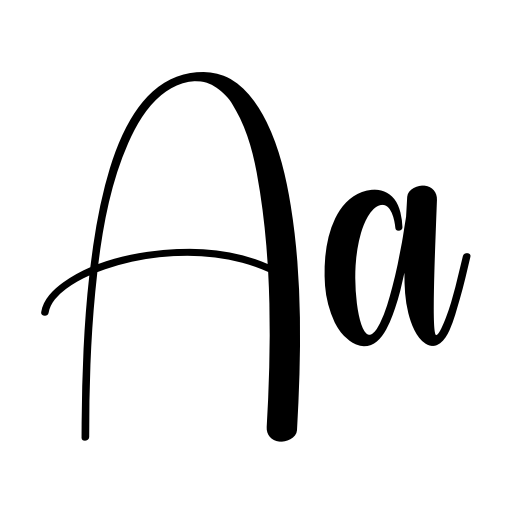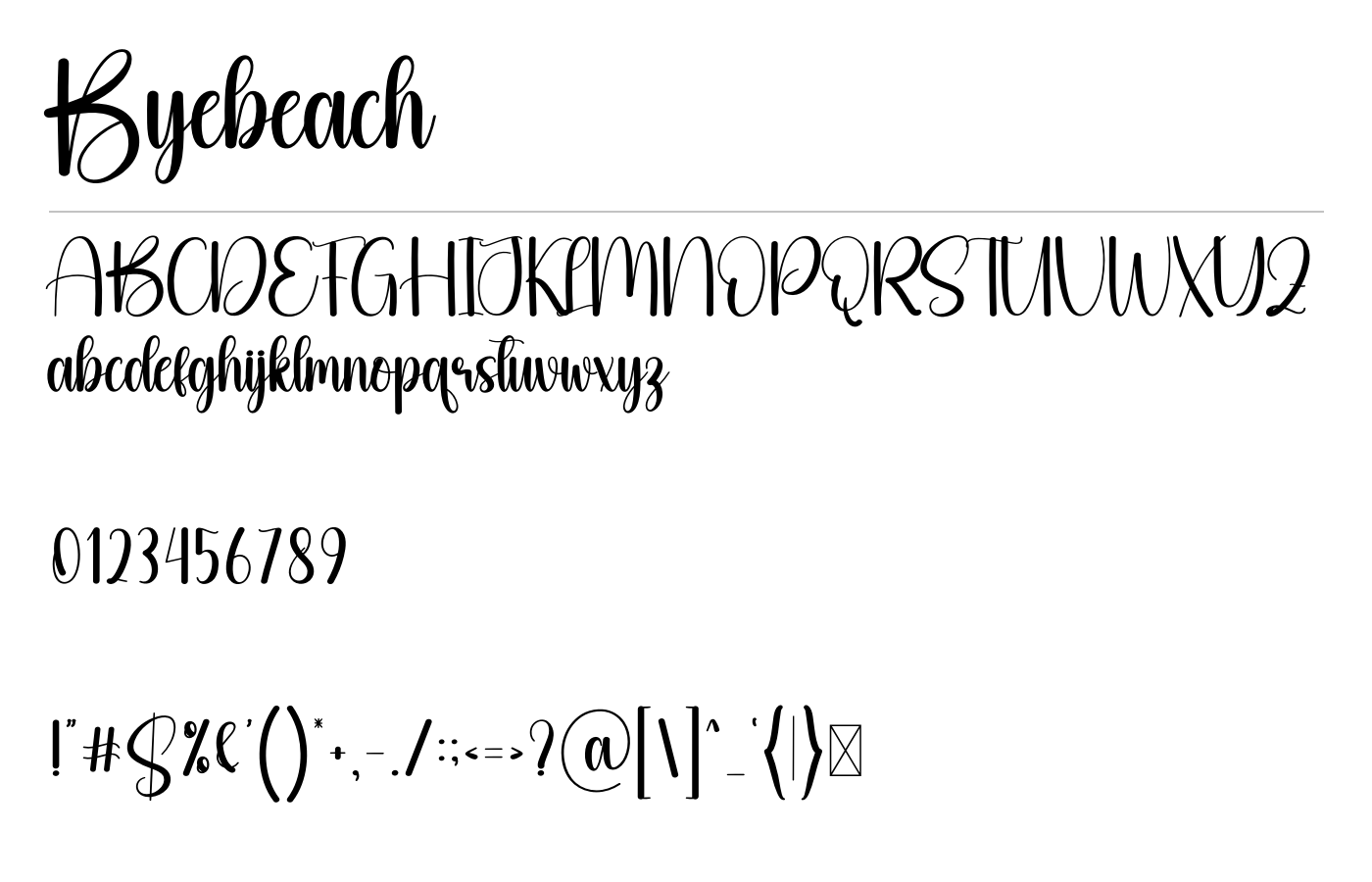
Byebeach is a playful and elegant script font with a hand-lettered feel, featuring smooth, flowing strokes and a mix of thick and thin contrasts. Its tall, narrow letterforms with unique, looping details create a charming and friendly personality, making it ideal for creative branding, invitations, and casual editorial projects. This font works best in display uses where a warm, approachable, and artistic touch is desired.
Byebeach Font
About Byebeach Font